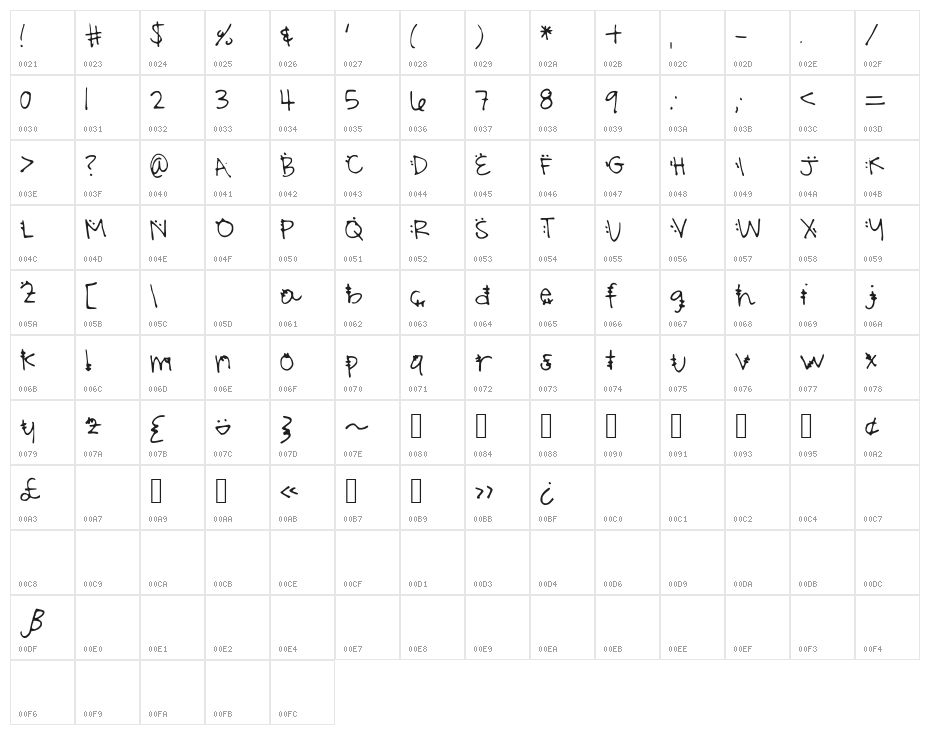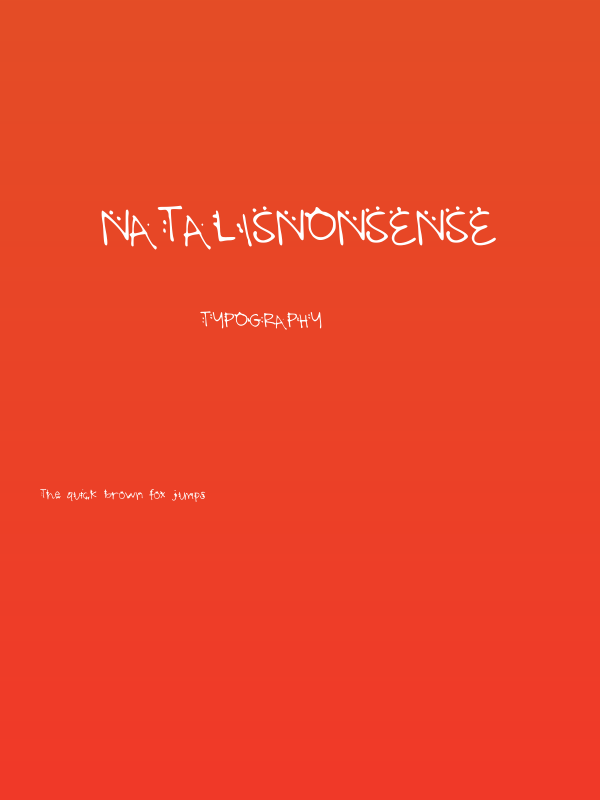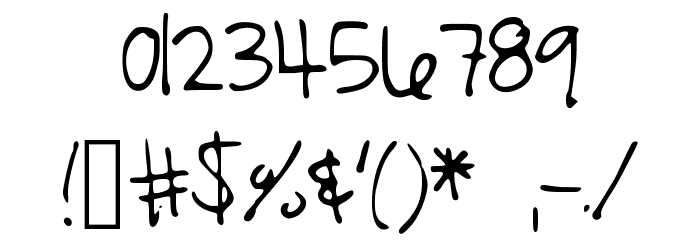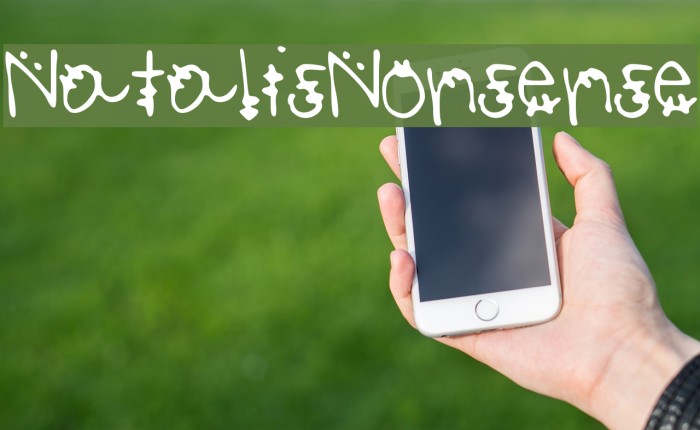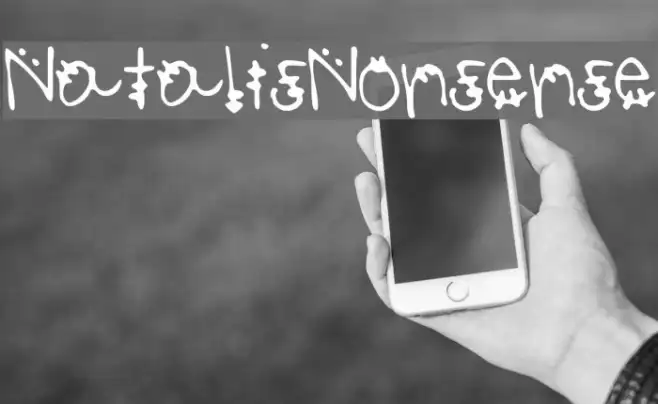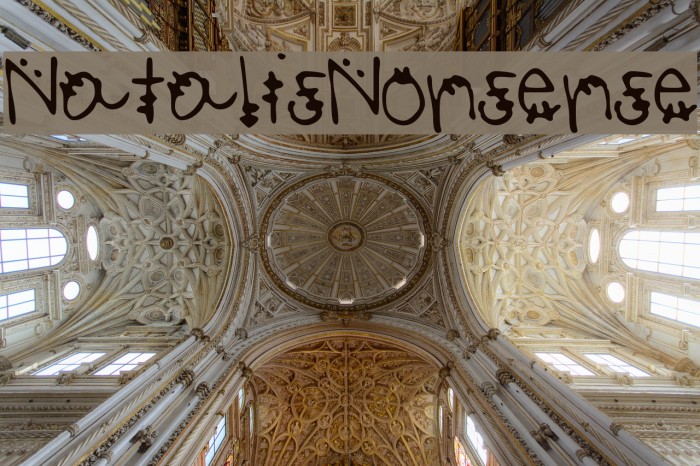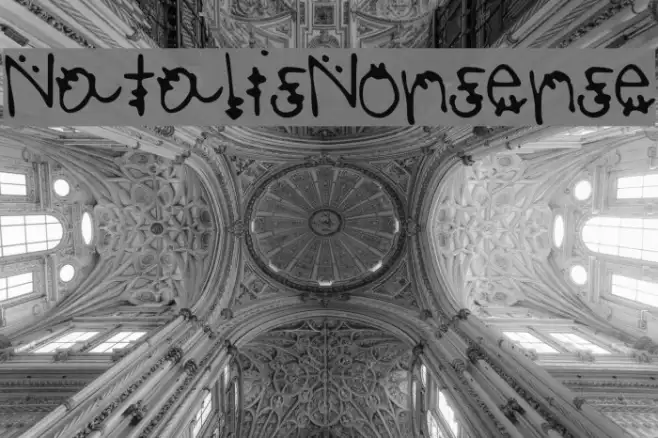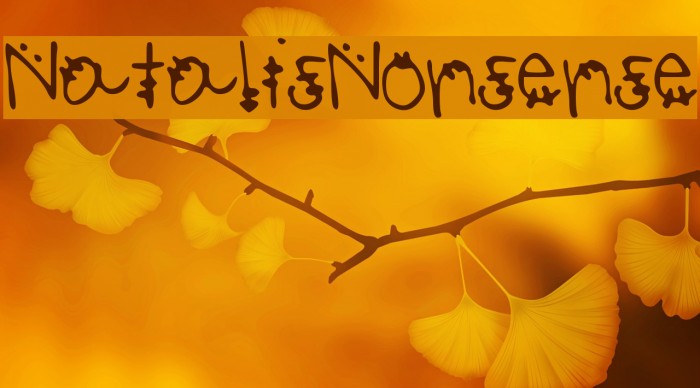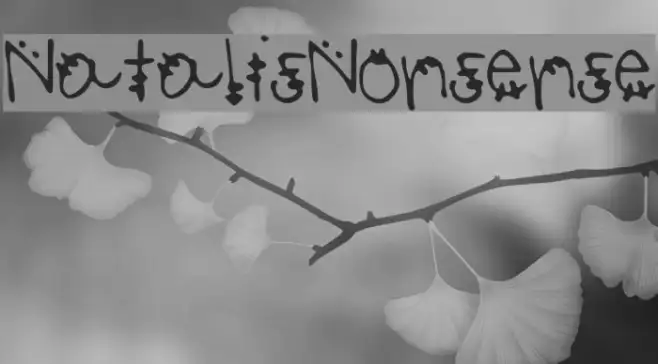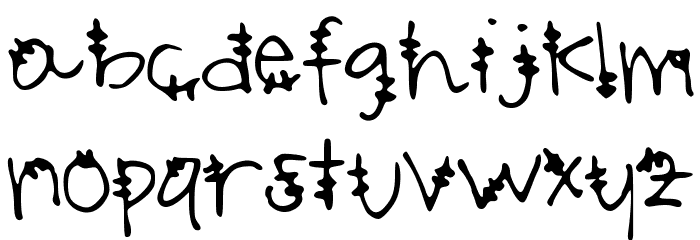
NatalisNonsense Font
NatalisNonsense Description
This playful and whimsical font features a unique design with decorative dots and strokes that give it a lively and animated appearance. The characters are irregular and quirky, with a hand-drawn feel that adds a sense of fun and creativity. The uppercase and lowercase letters maintain a consistent style, while the numbers and special characters complement the overall aesthetic. The font's distinctive personality makes it stand out, making it ideal for projects that require a touch of humor and individuality.